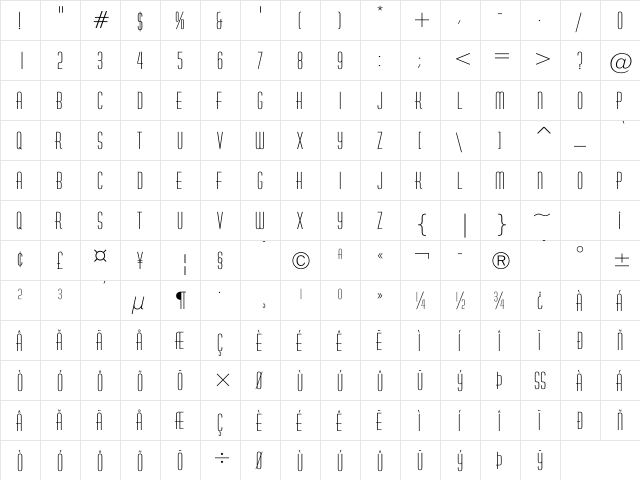
Huxlee Vertical Regular
Design Context for Huxlee Vertical Typeface
Huxlee Vertical offers clean, dependable letterforms without strong stylistic allegiance, making it a practical choice for designers who need flexibility.